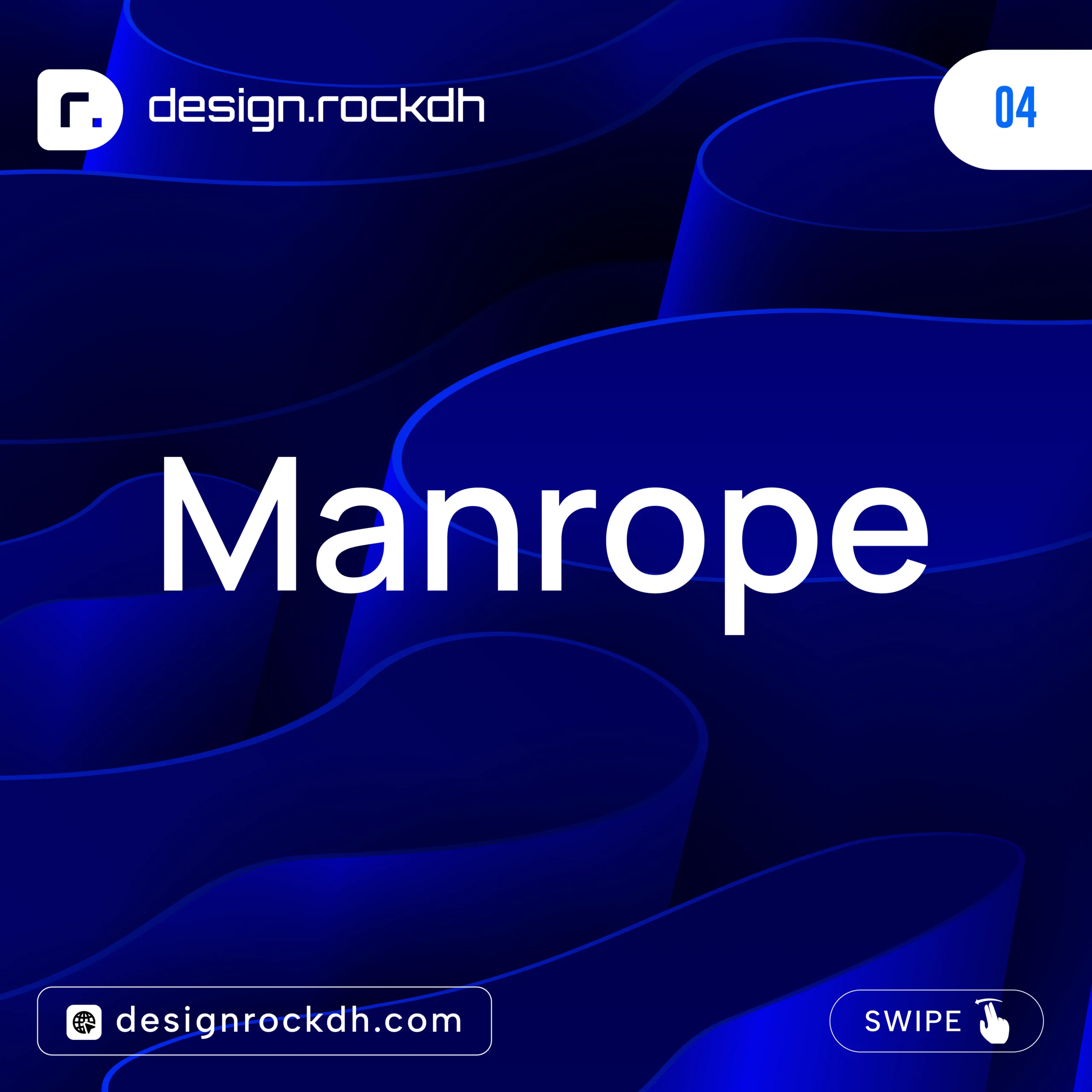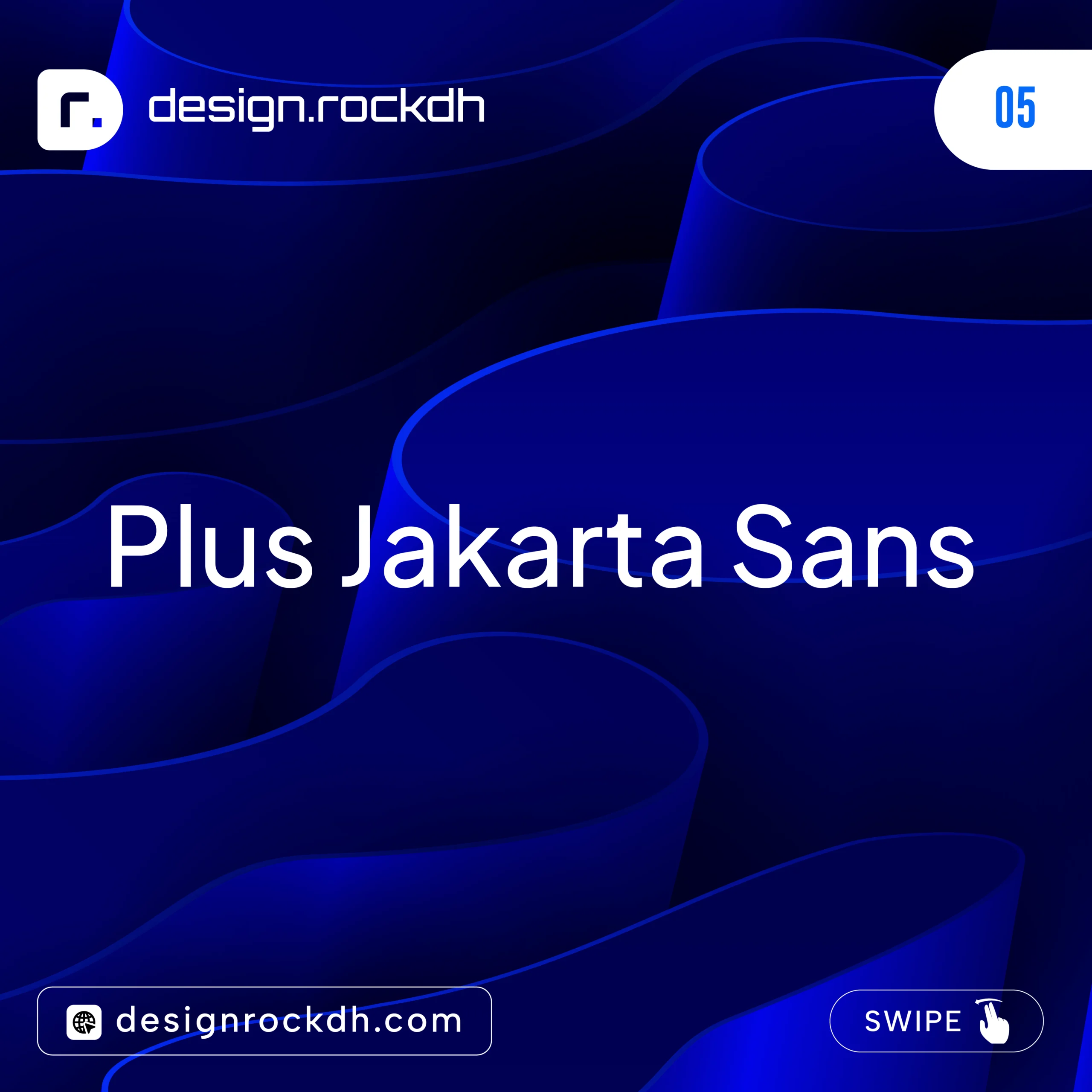
If you’re searching for the best sans serif fonts for branding, logo design, UI/UX, websites, social media, or graphic design, you’ve come to the right place. In this guide, you’ll discover some of the most popular free and premium sans serif fonts available in 2026, along with practical use cases, font pairing suggestions, and download resources to help you choose the right typeface for your next project.
Typography is one of the most powerful elements of visual design. It shapes how people perceive a brand, influences readability, and helps communicate your message clearly. Even a beautifully designed logo, website, or marketing campaign can lose its impact if the typography doesn’t match the overall design.
Among all typeface categories, sans serif fonts continue to dominate modern design. Their clean lines, minimal style, and excellent readability make them a favorite for designers across digital and print media. From startup branding and mobile apps to business websites and social media graphics, these fonts offer the flexibility needed for almost any creative project.
Whether you’re building a portfolio website, designing a user interface, creating marketing materials, or developing a complete brand identity, selecting the right sans serif font can instantly elevate the quality and professionalism of your work.
In this guide, you’ll learn what makes sans serif fonts so popular, explore the best free and premium options available today, discover effective font pairings, and find recommendations for different design projects.
What Are Sans Serif Fonts?
The term “sans serif” comes from the French word sans, meaning “without.” Simply put, sans serif fonts are typefaces that do not include the small decorative strokes, known as serifs, found at the ends of letters in traditional serif fonts.
Instead, they feature:
Clean, uncluttered lines
Simple geometric or humanist letterforms
A modern and professional appearance
Excellent readability on screens of all sizes
Because of their minimal design, sans serif fonts have become the preferred choice for websites, mobile applications, software interfaces, and digital products. They remain clear and easy to read on everything from smartphones to large desktop displays, making them ideal for today’s digital-first world.
Why Designers Prefer Sans Serif Fonts
There’s a reason many of the world’s leading brands rely on sans serif typography. Companies like Google, Spotify, Airbnb, Netflix, Adobe, and countless technology startups use these fonts to create clean, modern, and highly recognizable visual identities.
Designers appreciate sans serif fonts because they offer several important advantages:
Excellent readability across both desktop and mobile devices
A clean, professional look that suits modern branding
Strong versatility for websites, apps, presentations, and marketing materials
Better user experience thanks to clear, legible typography
A timeless style that rarely feels outdated
Improved visual hierarchy when combined with different font weights
Another advantage is their flexibility. Sans serif fonts pair beautifully with serif typefaces, allowing designers to create balanced typography systems for editorials, websites, and brand identities. This combination adds visual contrast while maintaining a polished and cohesive design.
Best Free Sans Serif Fonts Every Designer Should Try
High-quality typography doesn’t always come with a price tag. Many of today’s most popular sans serif fonts are completely free and offer professional results for branding, web design, UI/UX, marketing, and print projects. Whether you’re just starting out or expanding your font library, these typefaces deserve a place in your toolkit.
1. Inter
Inter has become one of the most trusted fonts for digital products and user interfaces. Designed specifically for screens, it delivers exceptional readability at both small and large sizes, making it a favorite among UI and UX designers.
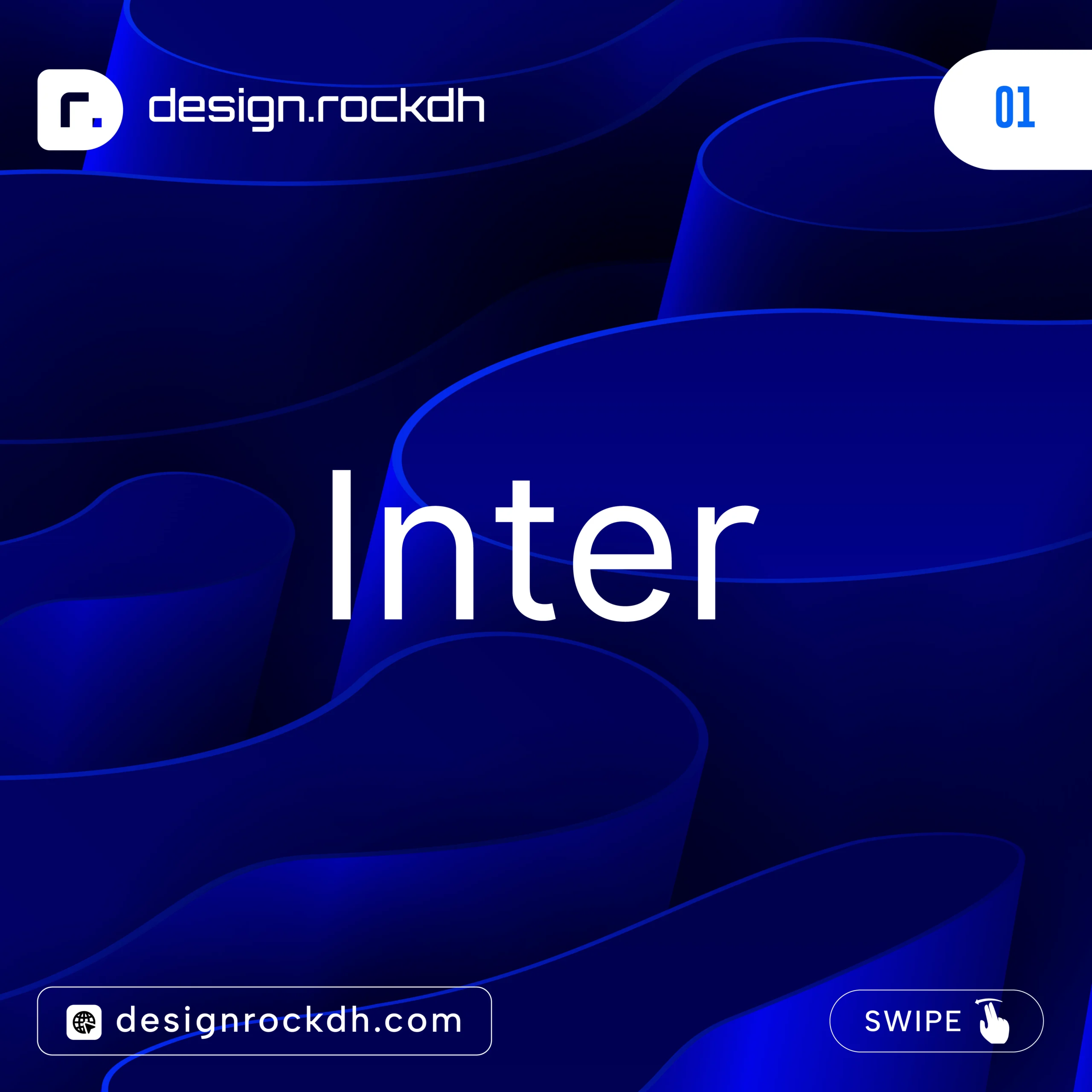
Best for:
UI and UX design
Websites
Mobile apps
SaaS dashboards
Digital products
2. Poppins
Poppins combines clean geometric shapes with subtle rounded details, creating a modern look that’s both professional and approachable. Its versatility makes it suitable for everything from branding to social media graphics.
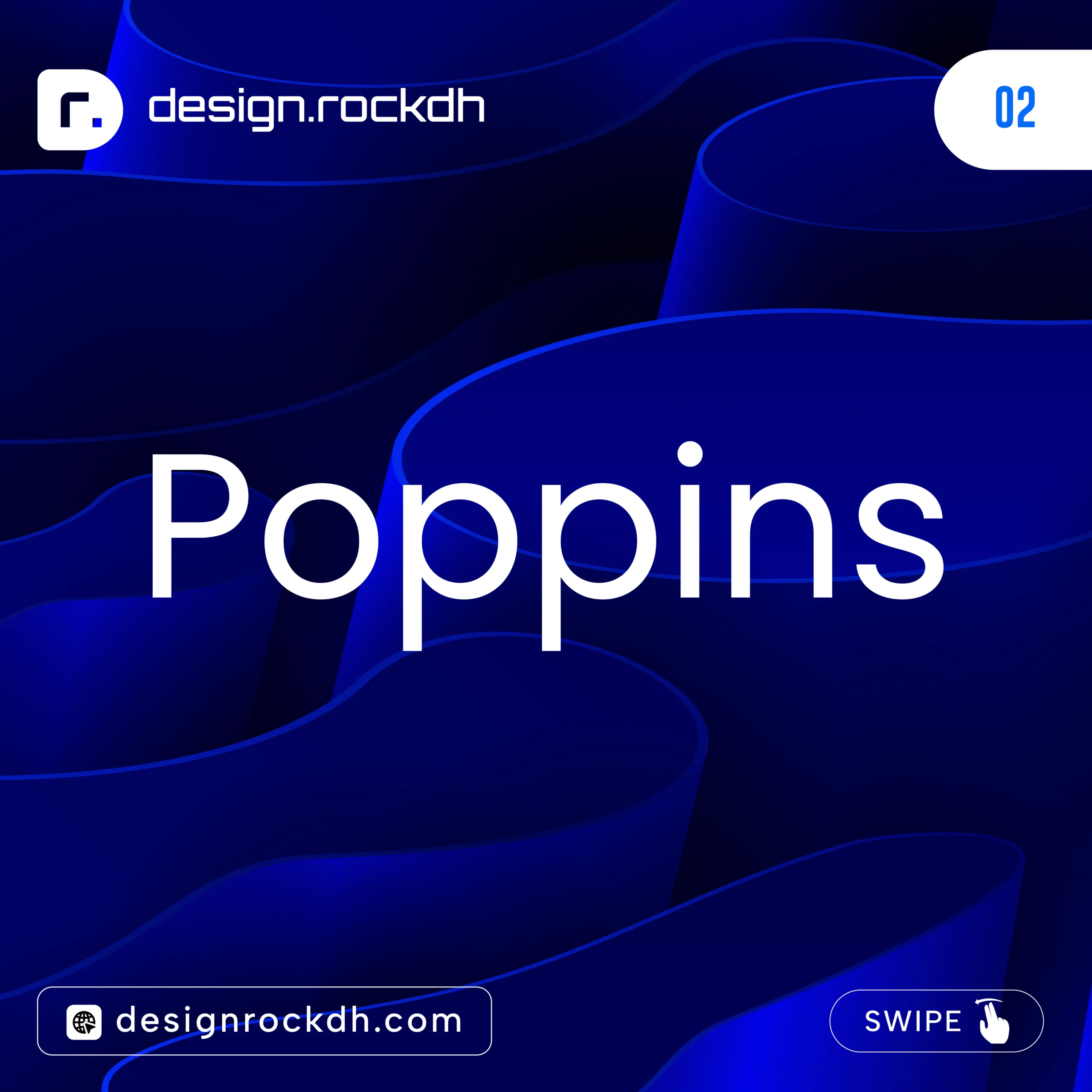
Best for:
Branding projects
Social media content
Marketing materials
Presentations
Creative websites
3. Outfit
Outfit has quickly gained popularity among designers who prefer bold, contemporary typography. Its clean structure makes it especially effective for large headings and modern website layouts.
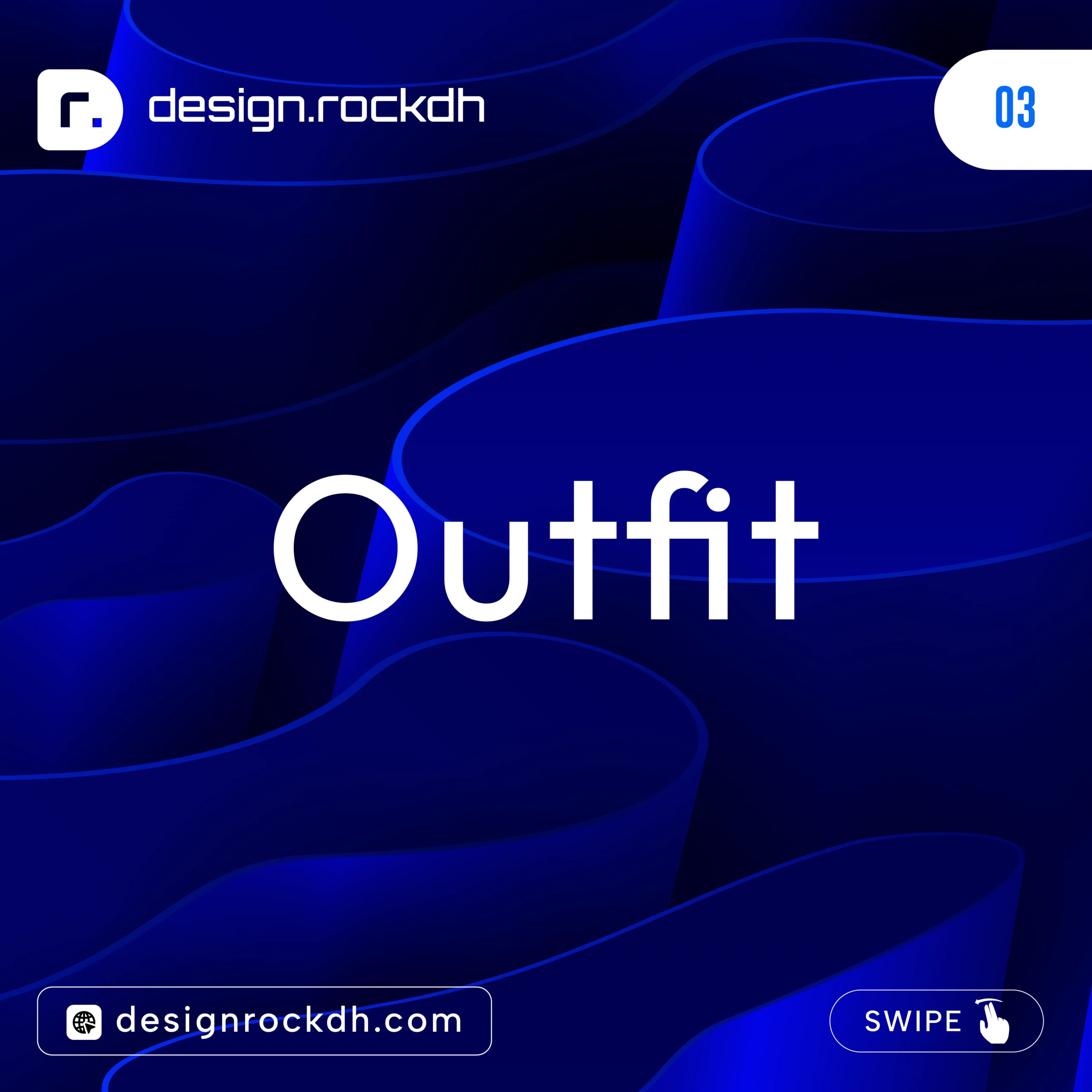
Best for:
Landing pages
Hero sections
Creative agency websites
Portfolio sites